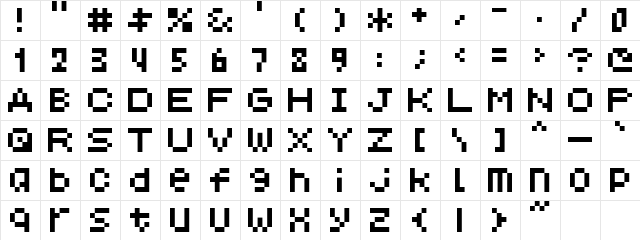
ChibiBitA5 Regular
Design Context for ChibiBitA5 Typeface
ChibiBitA5 offers clean, dependable letterforms without strong stylistic allegiance, making it a practical choice for designers who need flexibility.